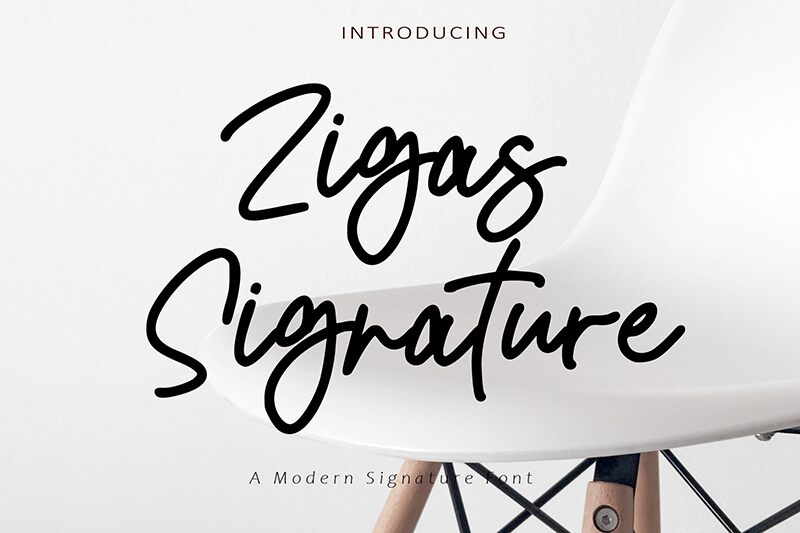
Zigas Signature font by Ibrahima Studio is a free handwritten font that embodies expressive design in its style. The stylish font achieves fluid, elegant, and dynamic flow with a personal touch that makes it great for prominent contemporary applications. The pen-style line of each of its characters makes an authentic addition to digital and printed works. The keywords signature style and modern look are justified when reviewing its visual appearance and examining more closely the font's use-cases.
Add personality, character, and style to branding projects including the company name, tagline, and mission and vision short descriptions. Use the font in the development of product packaging like food and cosmetic items, invitations and greeting cards, posters, and covers. Zigas Signature also allows a trendy edit and use for magazine covers, headlines, and featured content.